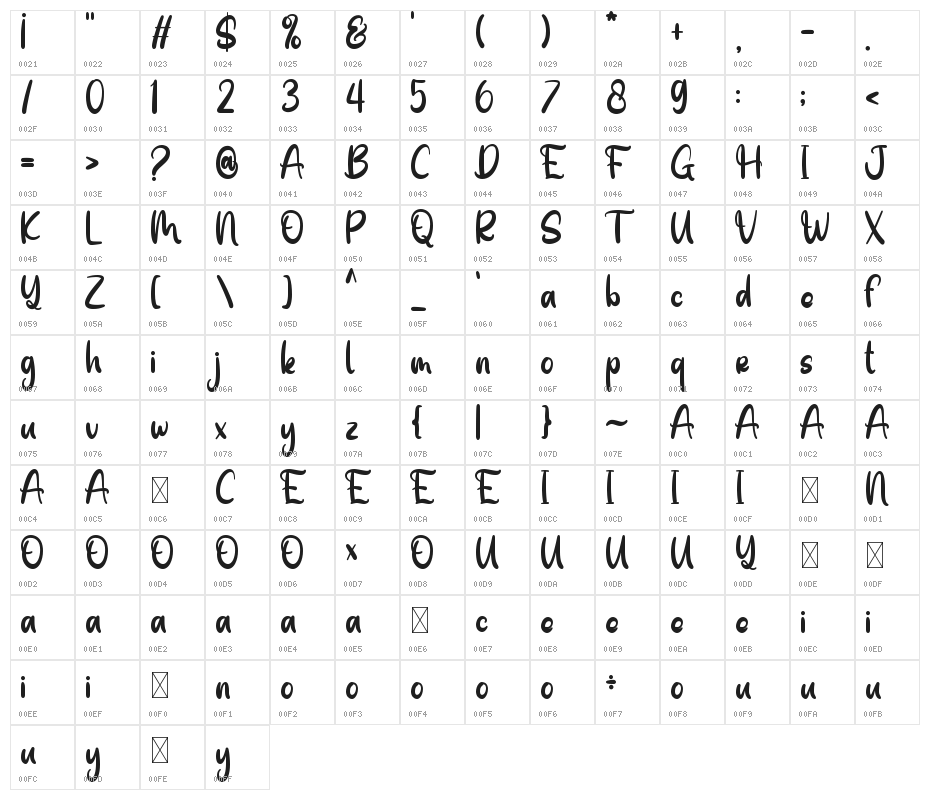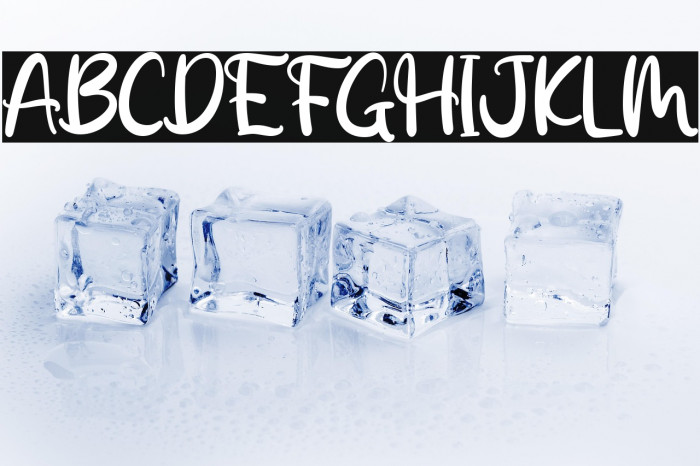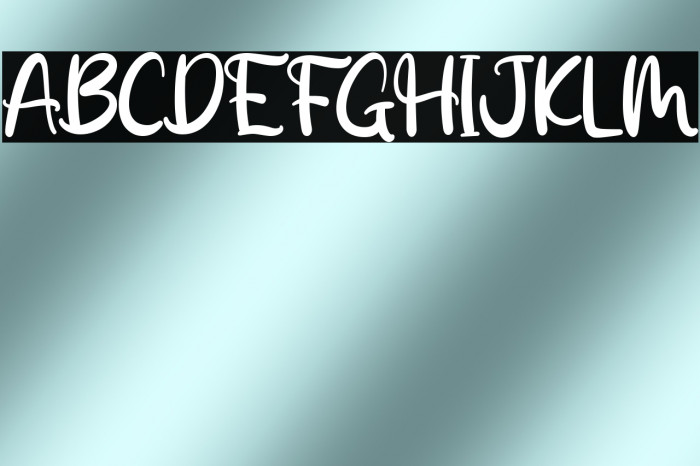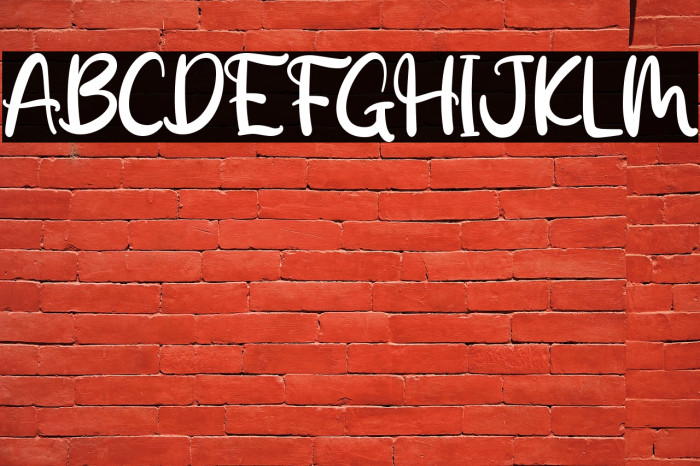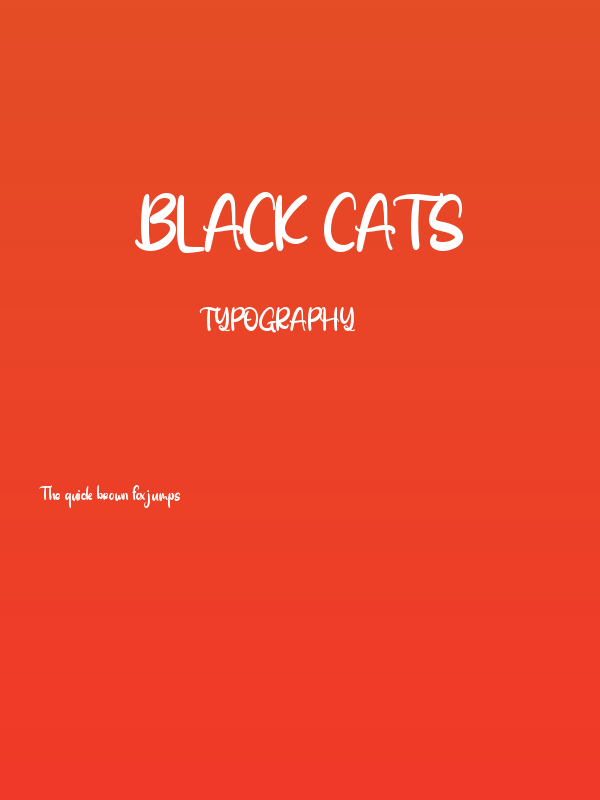
Black Cats Font
Black Cats Description
This playful and energetic font features a handwritten style with a bold and expressive character. The letters are rounded and slightly irregular, giving a casual and friendly appearance. The uppercase and lowercase letters maintain a consistent flow, with some letters featuring unique loops and curves that add to the font's charm. The numbers are equally dynamic, with a similar playful style. Special characters are well-integrated, maintaining the overall aesthetic. This font is perfect for projects that require a personal touch or a fun, informal vibe.
| Proposed Projects | Ideal for greeting cards, children's books, playful branding, and social media graphics. |